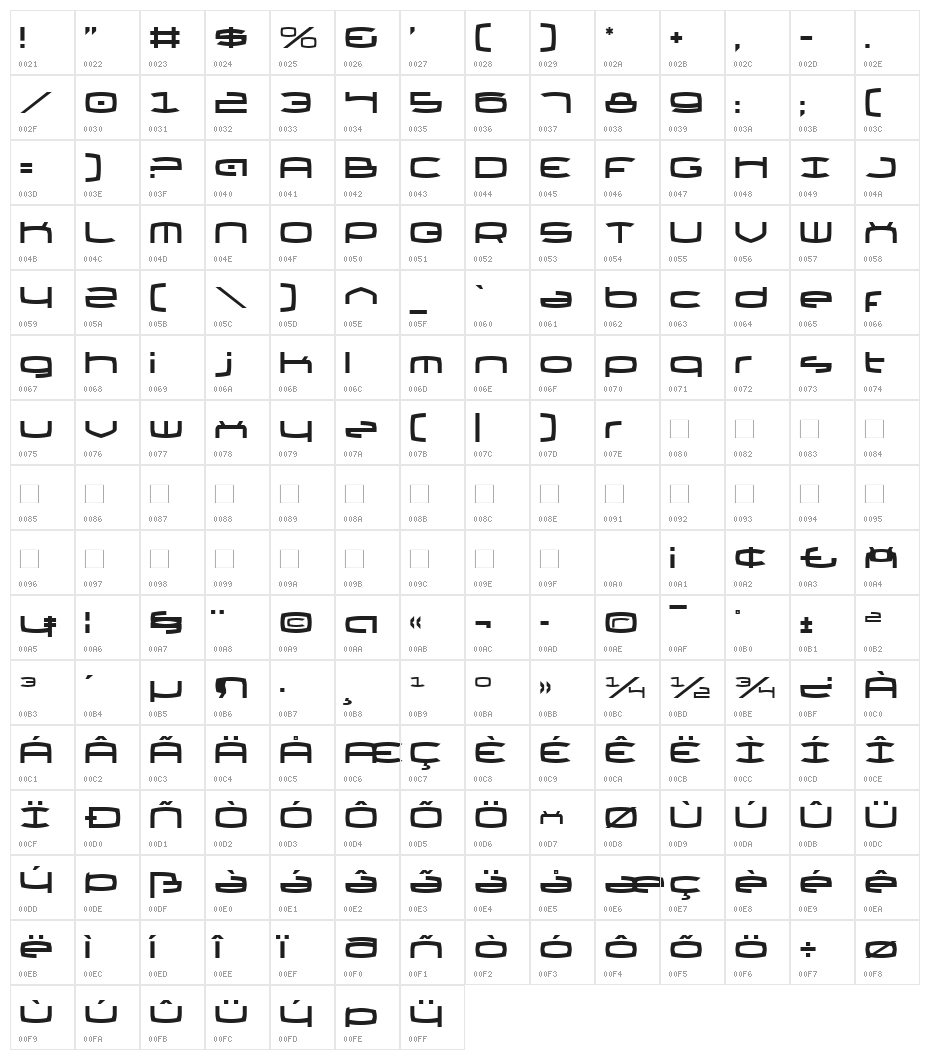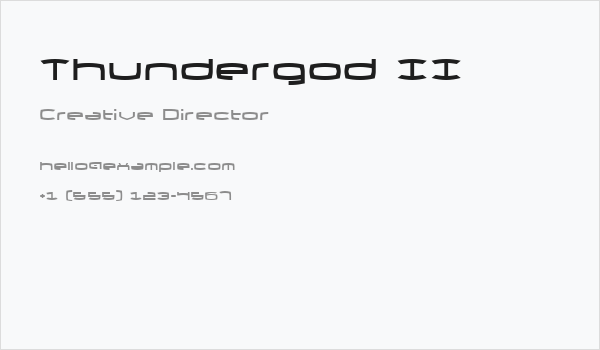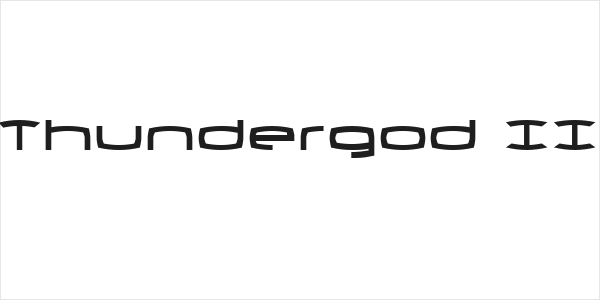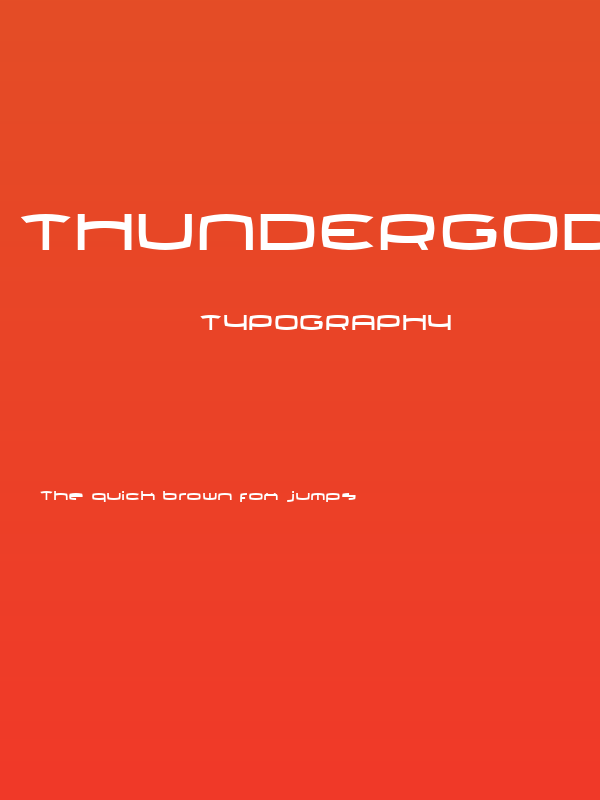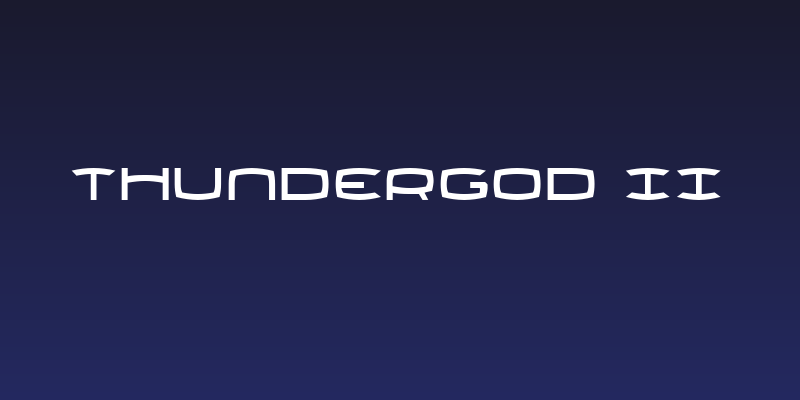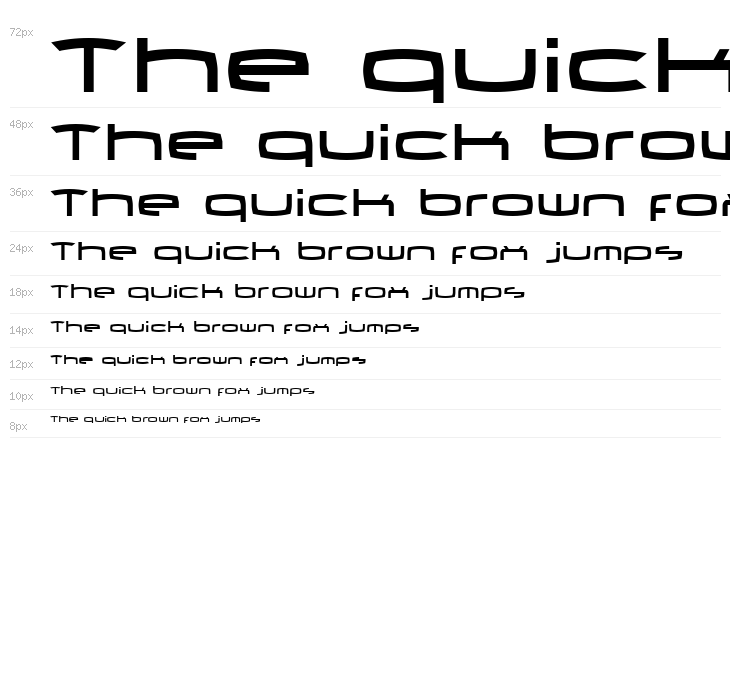
Thundergod II Font
Thundergod II Description
This font features a futuristic and angular design, characterized by its sharp edges and geometric shapes. The letters have a unique, almost mechanical appearance, with consistent stroke thickness throughout. The uppercase and lowercase letters maintain a cohesive style, with slight variations in curvature and line endings that add to its distinctiveness. Numbers and special characters follow the same design principles, ensuring uniformity across all glyphs. The overall look is bold and striking, making it suitable for attention-grabbing headlines or modern branding projects.